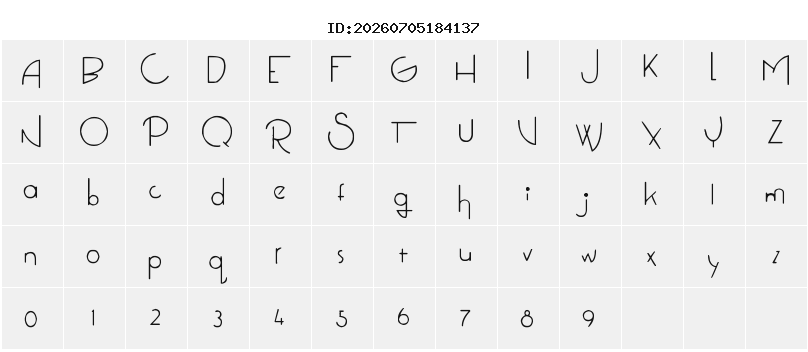
Do I like Stripes? Preview
• Font Name: Do I like Stripes?
• Full Font Name: Do I like Stripes?
• Version: Version 1.00 February 27, 2006, initial release
About Do I like Stripes?.ttf
Do I like Stripes?.ttf is a modern, elegant sans-serif font designed for ultimate readability and visual harmony. Perfect for branding, headlines, web design, and print materials.